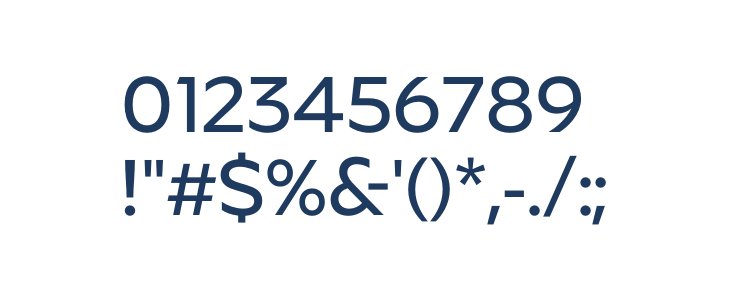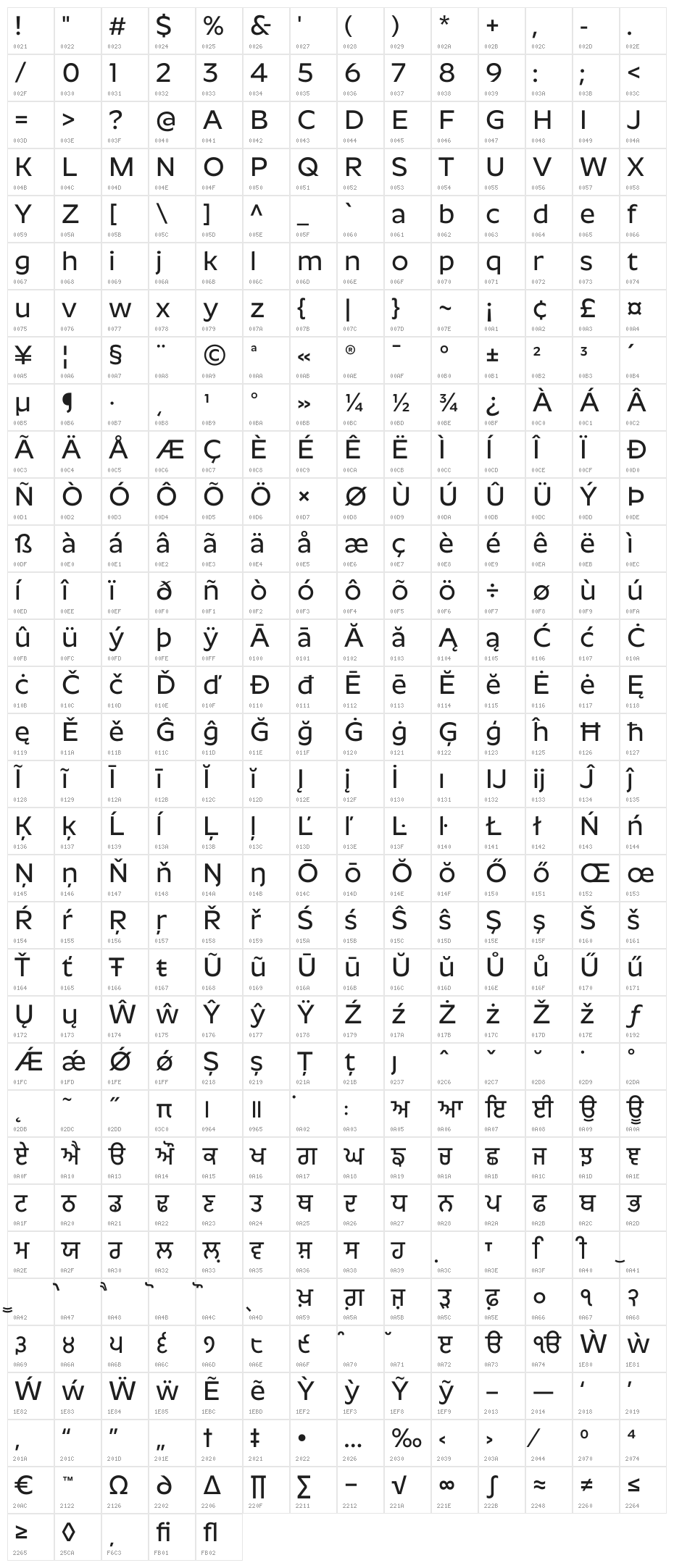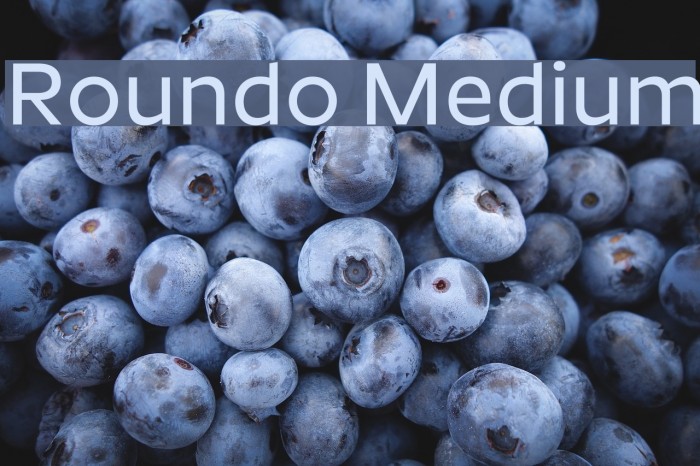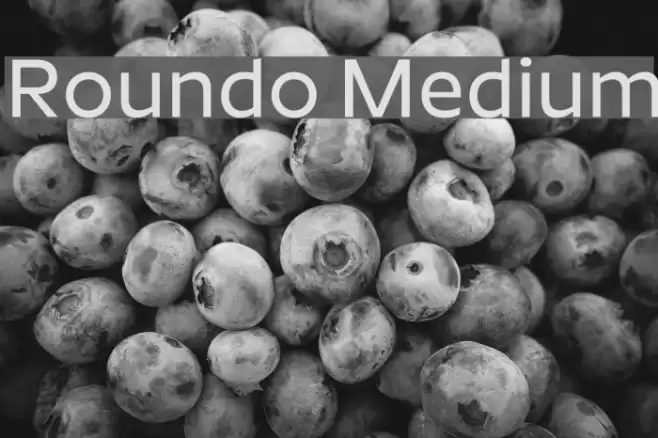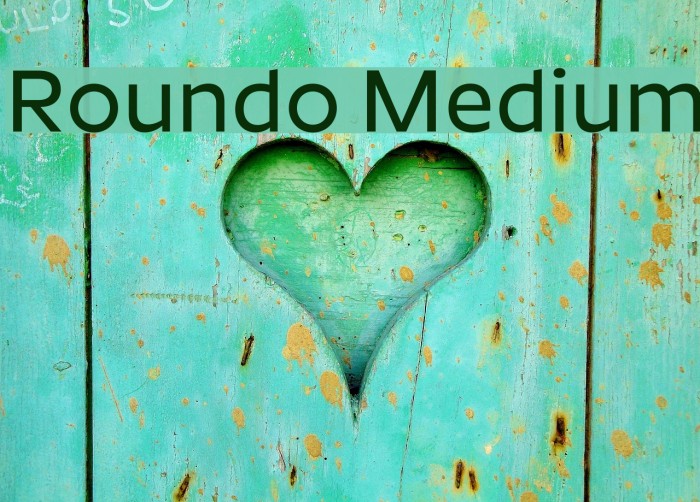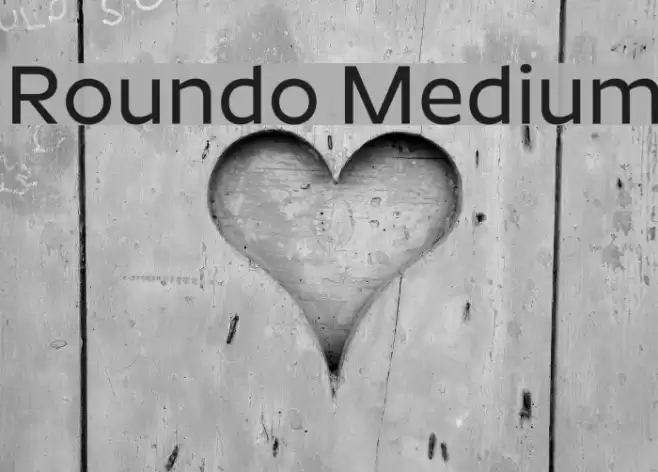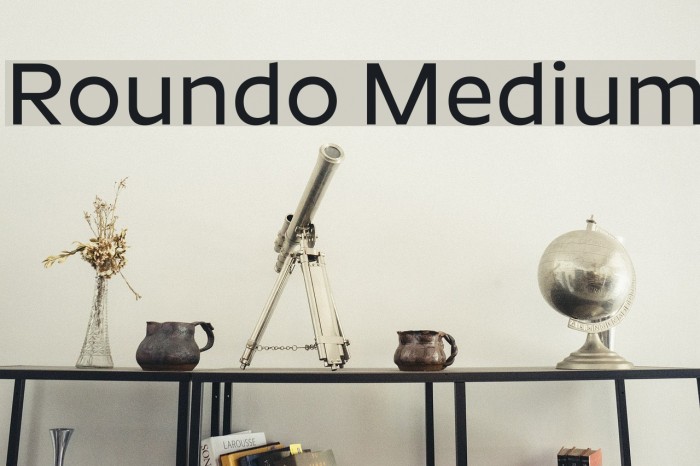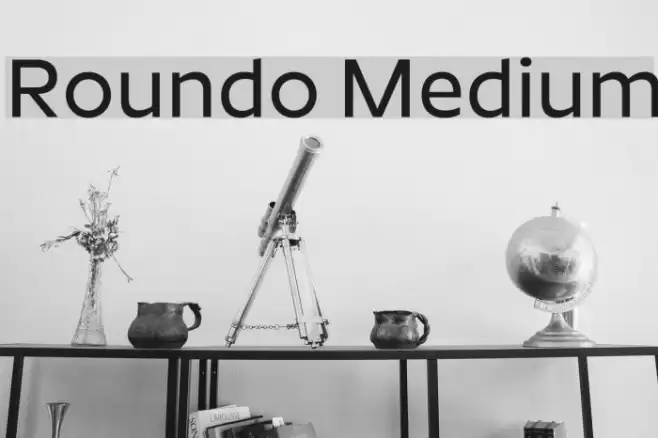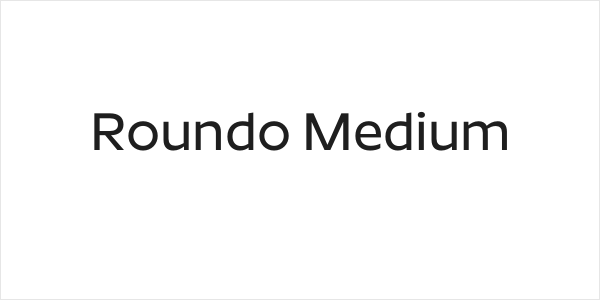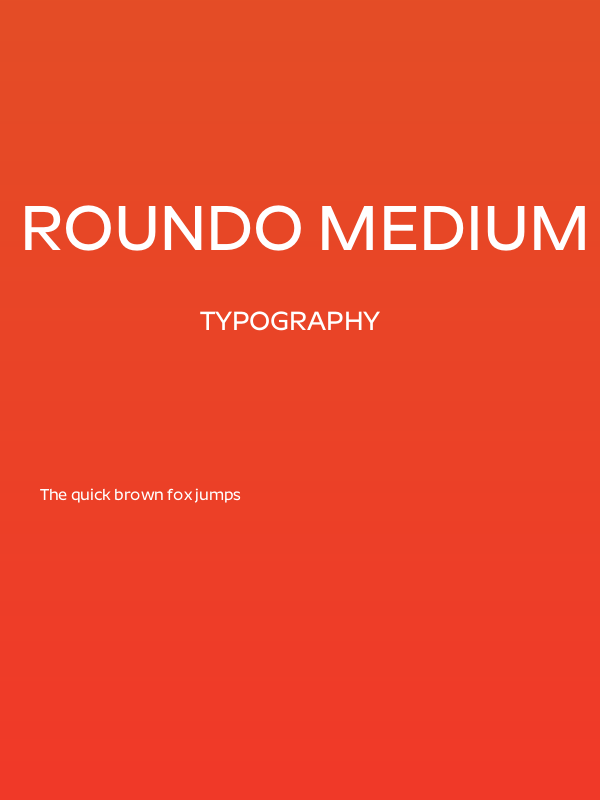
Roundo Medium Font
Roundo Medium Description
This font features a clean and modern sans-serif design with a balanced and uniform appearance. The characters are well-proportioned, with smooth curves and straight lines that create a harmonious look. The uppercase letters are bold and assertive, while the lowercase letters maintain a friendly and approachable feel. The numerals are clear and easy to read, making them suitable for a variety of applications. Special characters are included, ensuring versatility in usage. The overall style is contemporary, making it ideal for digital and print media.